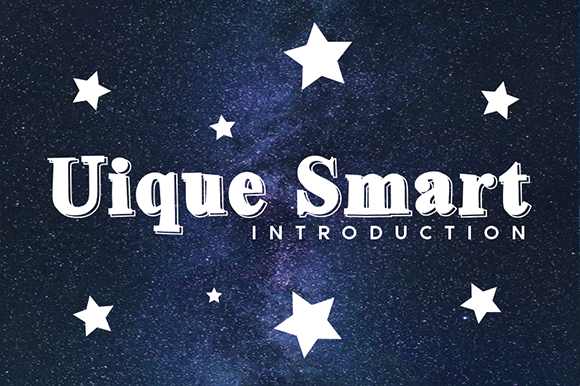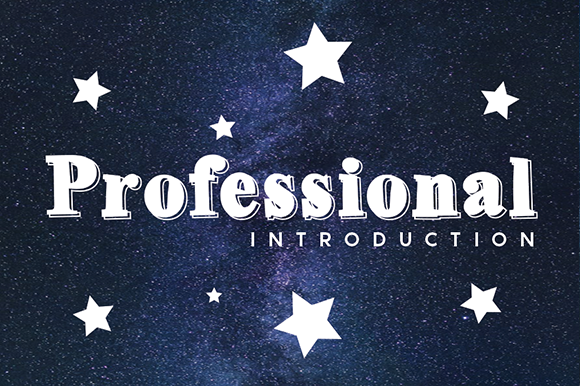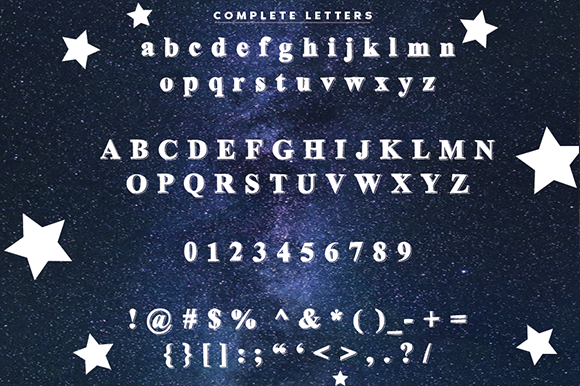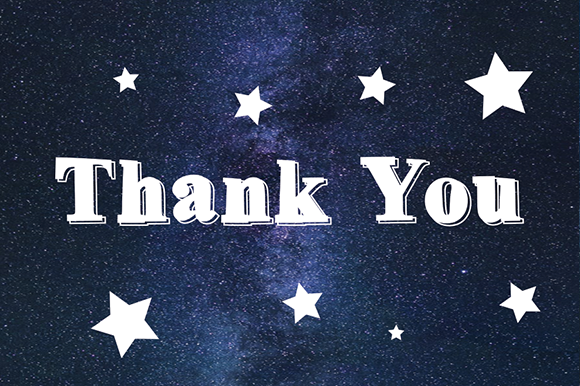
Introducing Balldisplay Font: The Perfect Blend of Fun and Professionalism
Are you tired of using the same old fonts for your design projects? Look no further than Balldisplay Font, a fun and friendly display font that’s perfect for adding a touch of personality to your logos, branding, social media, and DIY projects. In this article, we’ll take a closer look at what makes Balldisplay Font so special and why it’s a must-have for designers and crafters alike.
Clean and Strong: The Characteristics of Balldisplay Font
Balldisplay Font is a clean and strong display font that’s designed to make a statement. Its unique shape and structure give it a distinctive look that’s both fun and professional. The font’s clean lines and strong strokes make it highly legible, even at large sizes, making it perfect for use in a variety of design applications.
The Perfect Fit for Logos and Branding
When it comes to creating a logo or brand identity, the font you choose can make all the difference. Balldisplay Font is the perfect fit for logos and branding due to its unique combination of fun and professionalism. Its clean and strong design makes it highly versatile, allowing it to be used in a variety of contexts, from business cards to billboards.
Elevate Your Social Media Presence with Balldisplay Font
In today’s digital age, having a strong social media presence is crucial for businesses and individuals alike. Balldisplay Font can help you elevate your social media presence by adding a touch of personality to your posts and profiles. Whether you’re creating graphics for Instagram, Facebook, or Twitter, Balldisplay Font is the perfect choice.
Perfect for Crafty DIY Projects
Balldisplay Font is not just limited to digital design applications. It’s also perfect for crafty DIY projects, such as scrapbooking, card making, and other paper crafts. Its unique design and fun personality make it a great choice for adding a personal touch to your DIY projects.
Key Features of Balldisplay Font
- Clean and strong design
- Fun and friendly personality
- Highly legible, even at large sizes
- Perfect for logos, branding, social media, and DIY projects
- Highly versatile and adaptable
Why Choose Balldisplay Font?
So why choose Balldisplay Font over other display fonts? Here are just a few reasons:
- Unique design: Balldisplay Font has a unique design that’s sure to stand out from the crowd.
- Highly versatile: The font’s clean and strong design makes it highly versatile and adaptable to a variety of design applications.
- Fun and friendly: The font’s fun and friendly personality make it perfect for adding a personal touch to your design projects.
In conclusion, Balldisplay Font is a fun and friendly display font that’s perfect for designers and crafters alike. Its clean and strong design, unique personality, and high versatility make it a great choice for a variety of design applications, from logos and branding to social media and DIY projects. Whether you’re looking to add a touch of personality to your design projects or simply want a font that’s easy to use and highly legible, Balldisplay Font is the perfect choice.